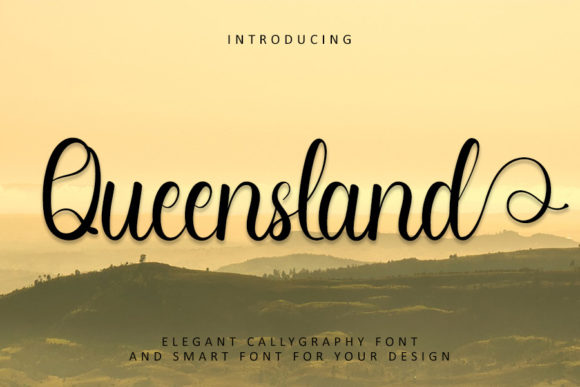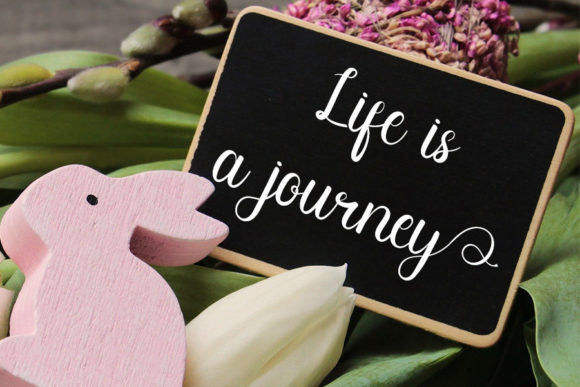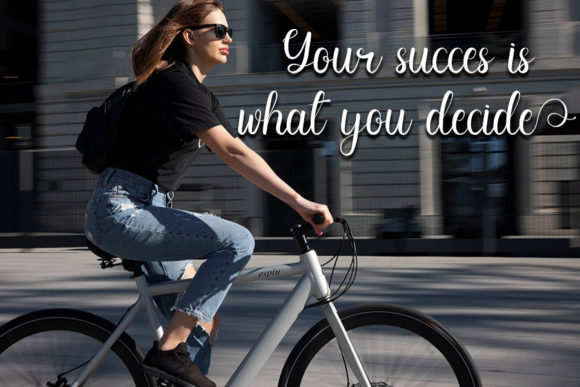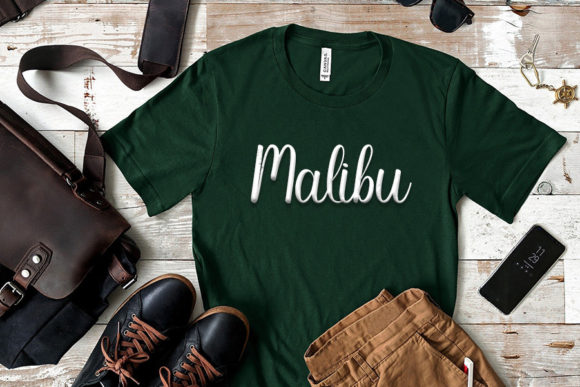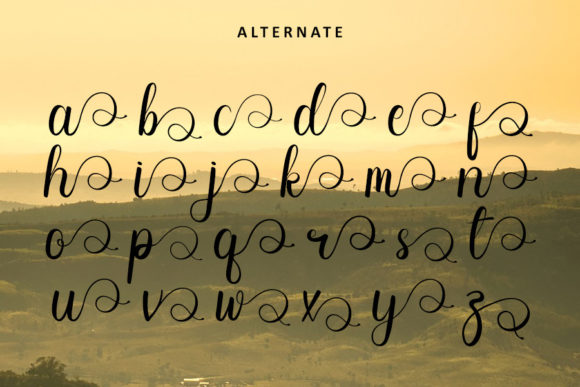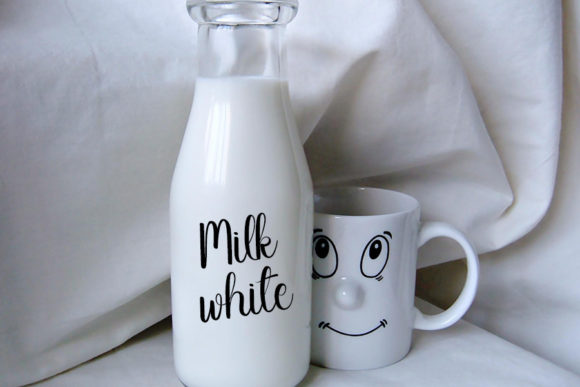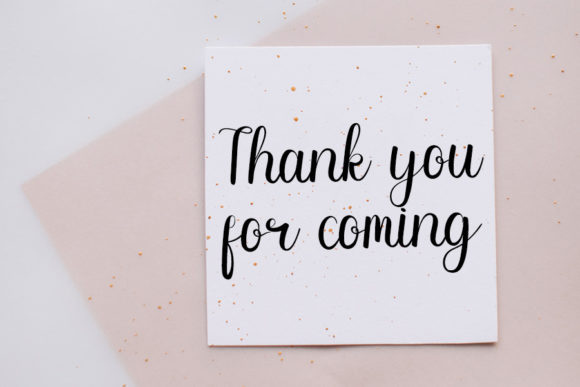
About Queensland Font
Queensland is a playful and smart handwritten font with an impeccable form, inspired by a timeless calligraphy. Balanced and varied, this font was designed to enhance the beauty of your projects. Queensland is PUA encoded which means you can access all glyphs and swashes with ease!